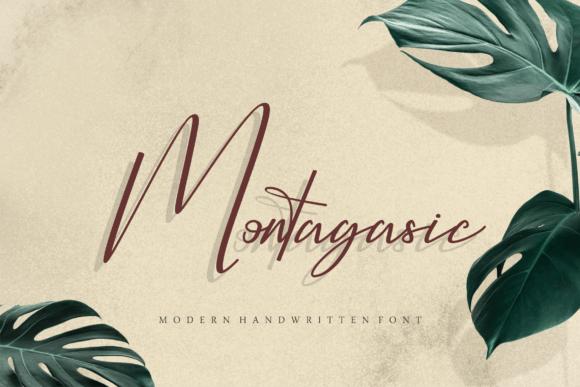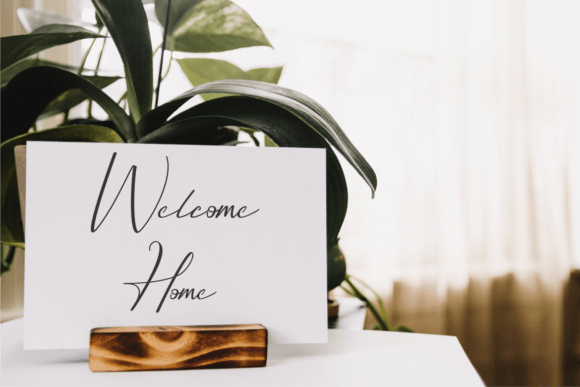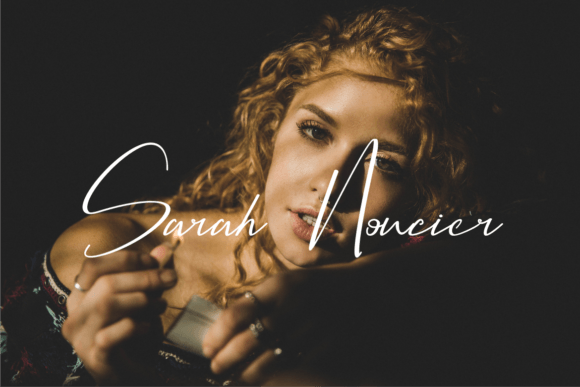
About Montagasic Font Download
The Montagasic Font Download is a stylish and delicate signature script font that combines sophistication with a modern handwritten look. Designed with graceful lines and balanced strokes, it is perfect for creating timeless and elegant designs. Whether you’re working on branding, wedding invitations, or professional logos, this typeface ensures your work stands out with class.
Elegant and Modern Handwritten Script
The Montagasic script font features a natural handwritten flow that makes it versatile for personal and business projects. Its refined curves add a romantic yet modern touch. Furthermore, its balanced style ensures clarity, making it effective in both small and large designs.
Perfect for Wedding Invitations and Cards
When designing wedding stationery, elegance is essential. The Montagasic Font is ideal for wedding invitations, thank-you cards, and greeting cards. Because of its stylish handwritten look, it adds warmth and sophistication, making every piece feel more personal.
Branding and Logo Design with Montagasic Font
Typography is a key element of branding. The Montagasic handwritten font works perfectly for boutique logos, product packaging, and high-end promotional designs. Its delicate yet stylish strokes create a professional image while maintaining a modern handwritten appeal.
Business Cards and Professional Uses
The Montagasic Font Download also excels in business cards, corporate branding, and identity design. Its clean and polished lines provide a unique personal touch that leaves a lasting impression. Consequently, it is an excellent choice for professionals who want their materials to feel both elegant and approachable.
Digital Media and Social Content
In today’s digital landscape, fonts must be flexible. The Montagasic typeface integrates smoothly into Instagram posts, Pinterest graphics, YouTube thumbnails, and blog layouts. Because of its refined handwritten vibe, it enhances social content and helps designs stand out online.
Why Designers Choose Montagasic Typeface
Designers appreciate fonts that blend usability with style. The Montagasic handwritten script is not only versatile and beautiful but also highly readable. Moreover, its timeless appearance ensures it will remain relevant for years to come.